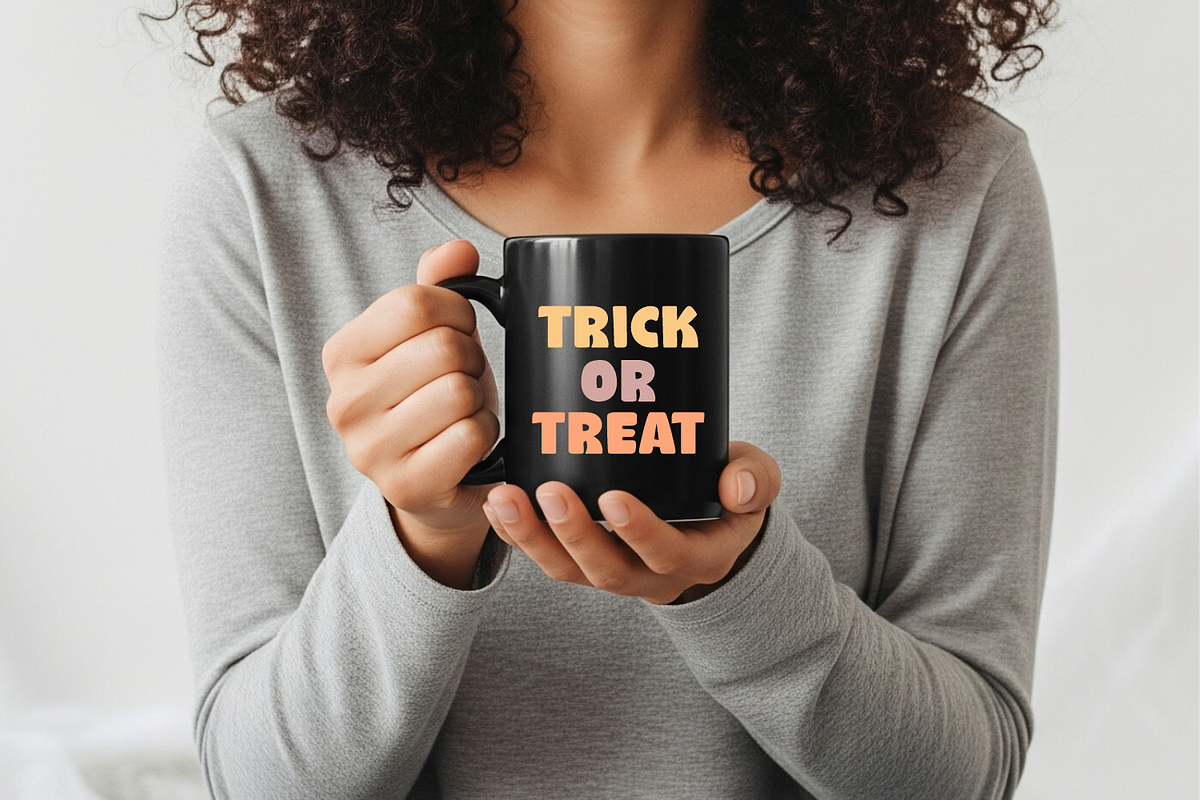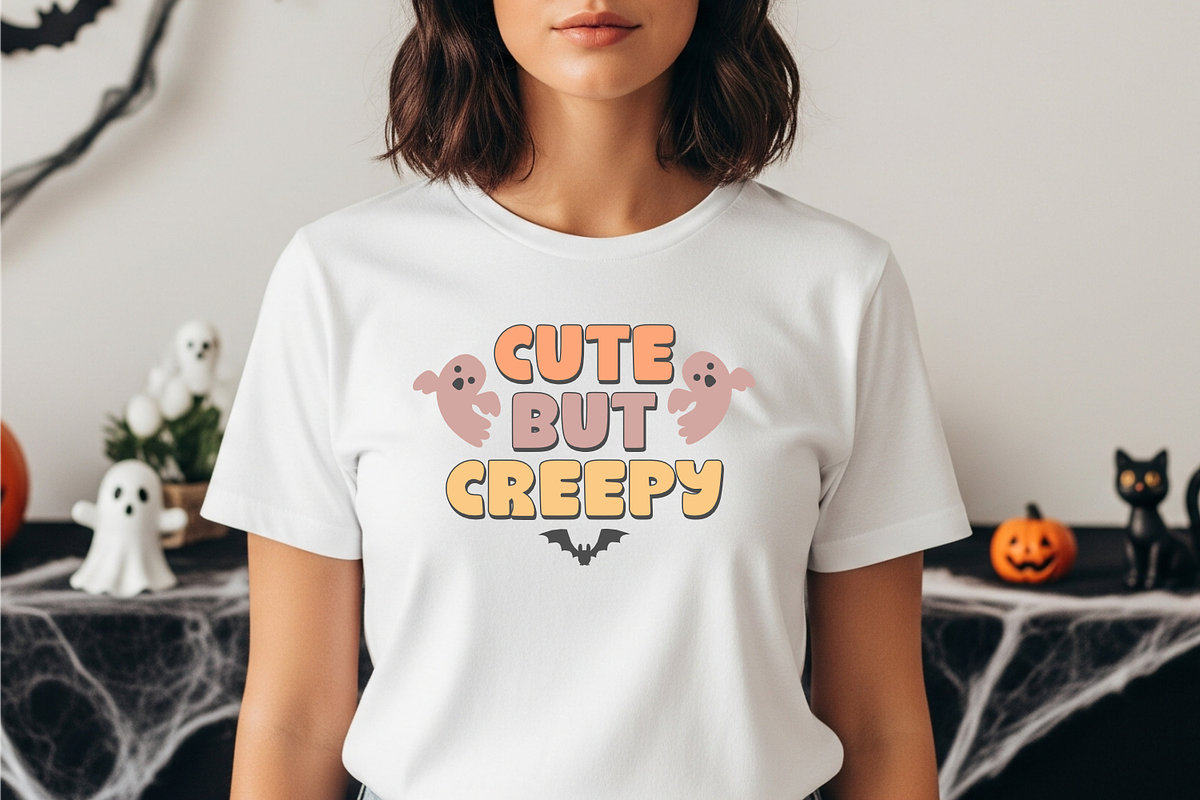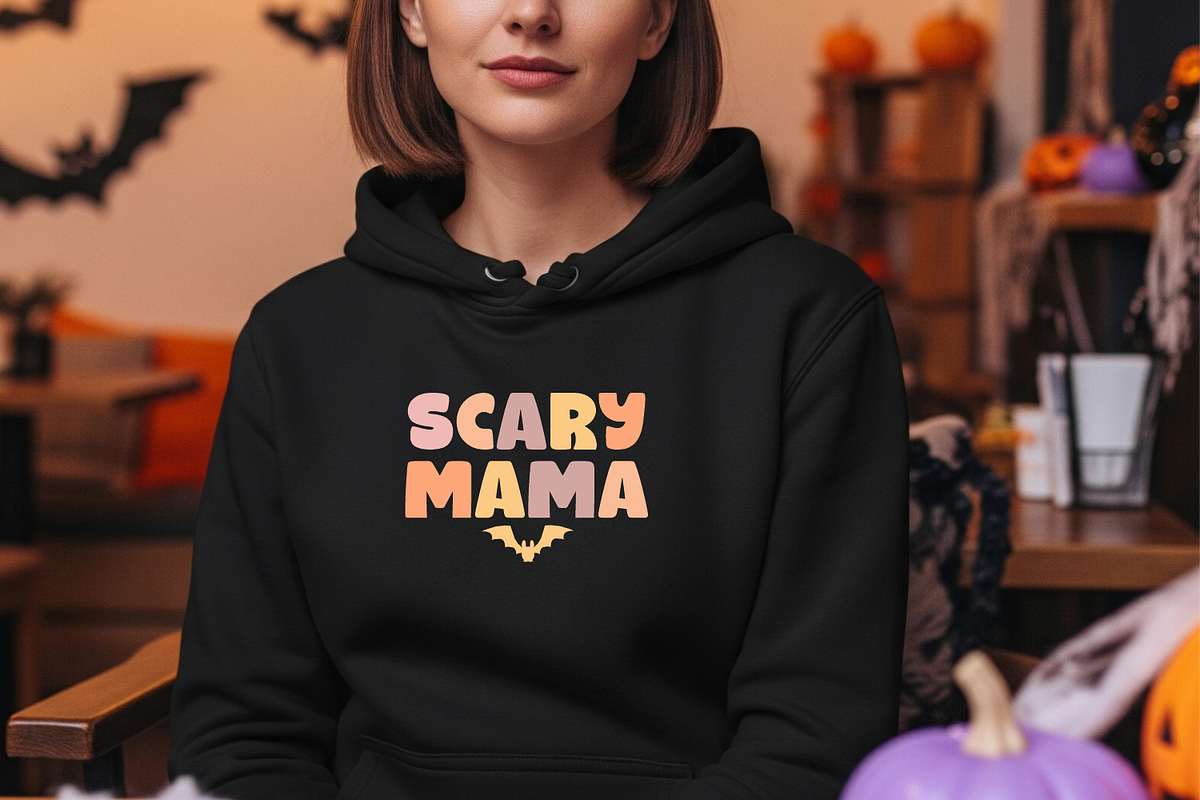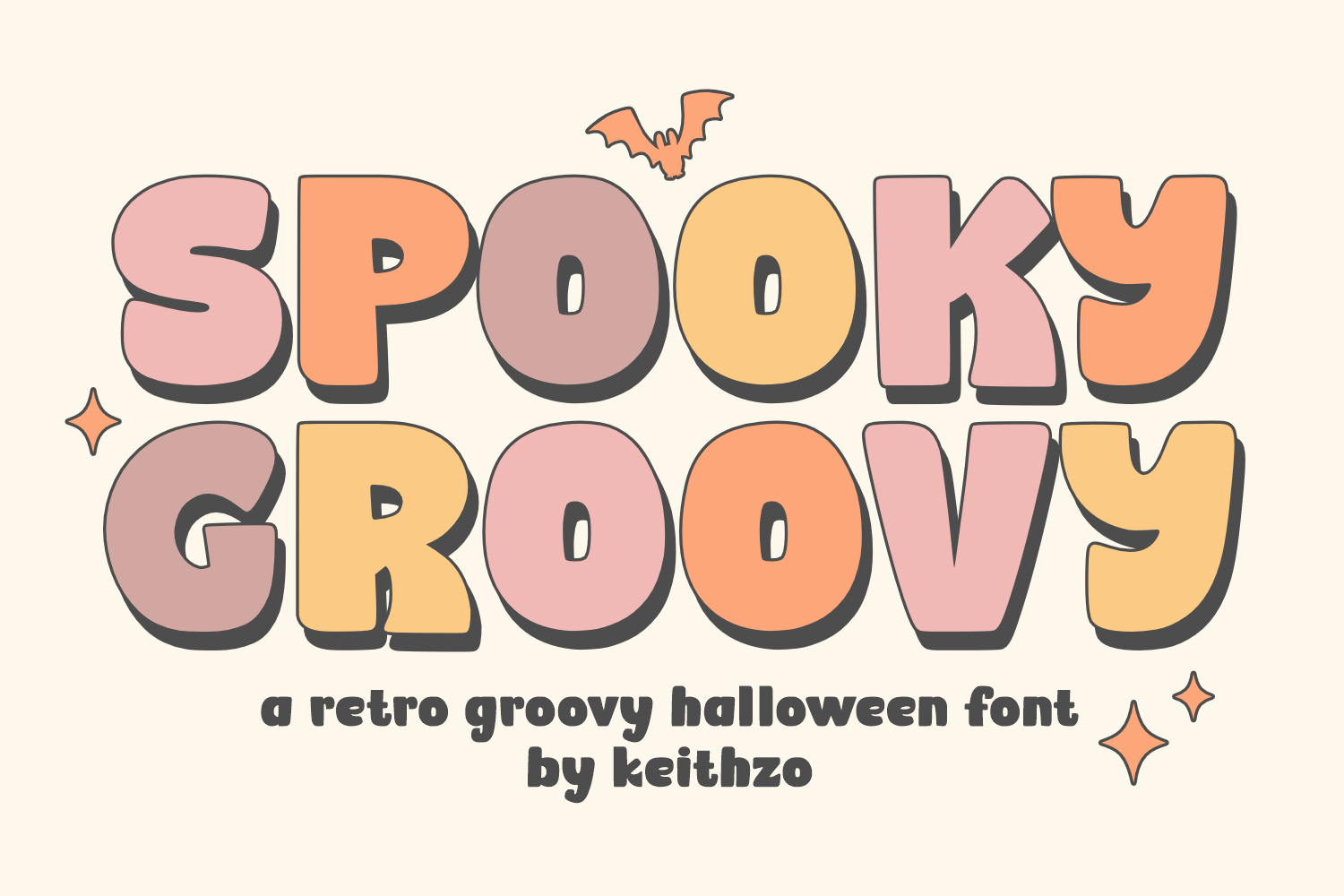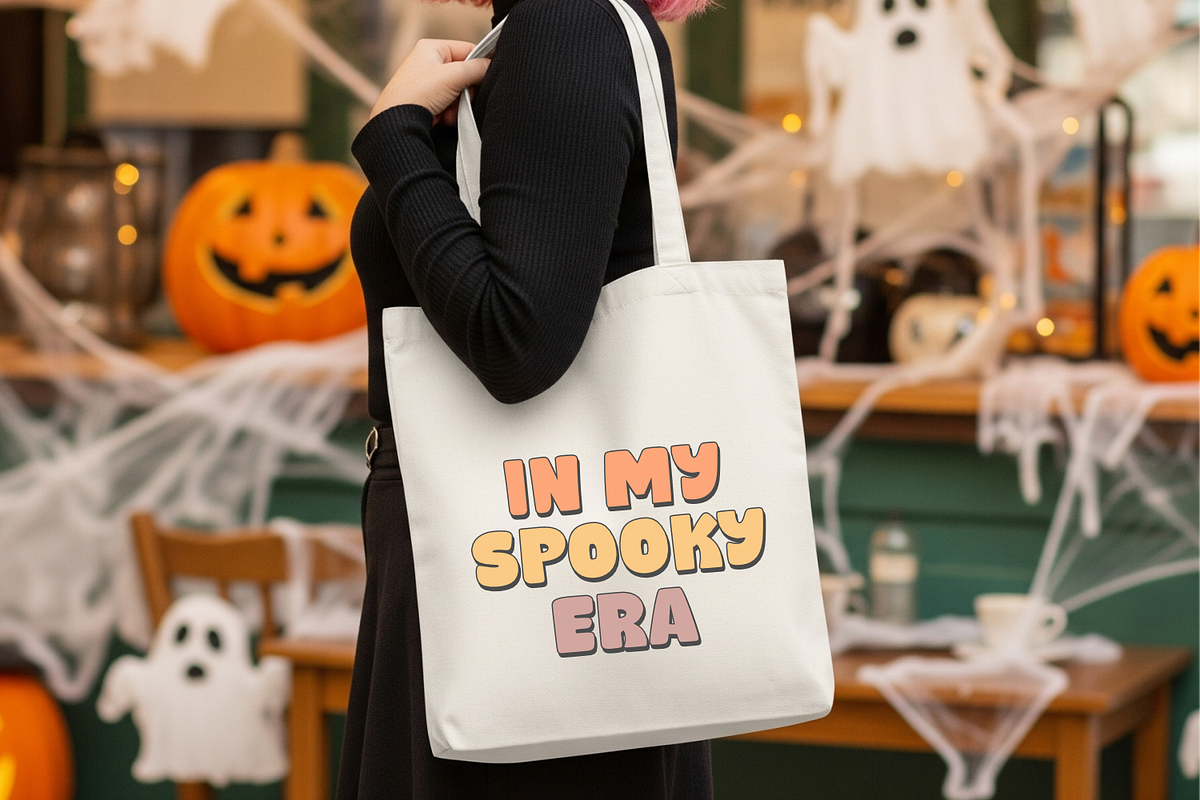
Spooky Groovy - Halloween Font
Spooky Groovy, a vintage Halloween font, whisks you away to a time when the ghouls and ghosts of yesteryears roamed streets under the moonlight. Designed specifically to capture the essence of a Retro Halloween, this font united the realms of horror and nostalgia in perfect harmony. It’s a quintessential choice for Halloween-inspired apparel like t-shirts and spooky tumblers. Brew up the perfect storm in your home with Spooky Groovy adorned Halloween mugs and vintage-themed decoratives. The font also breathes life into invites for your macabre parties. Unleash the cryptic, chilling appeal within your creative projects with Spooky Groovy!